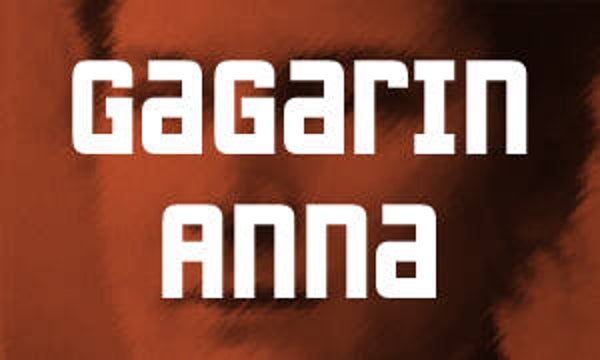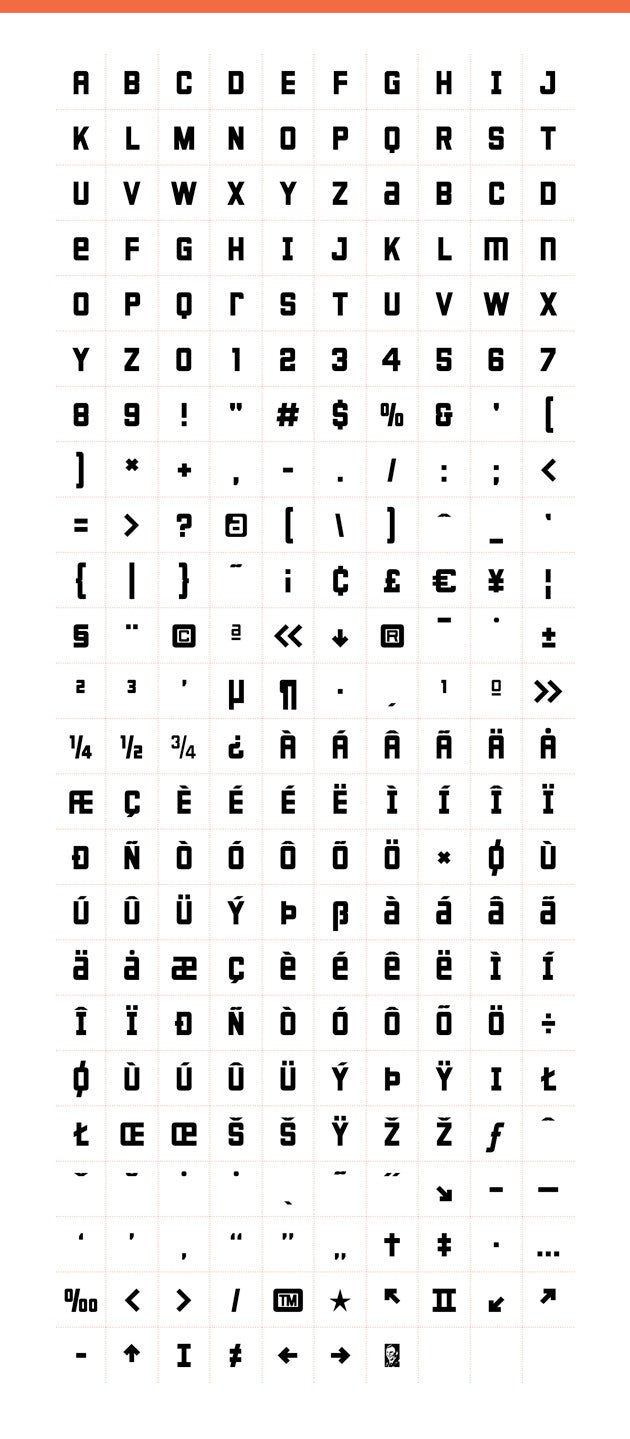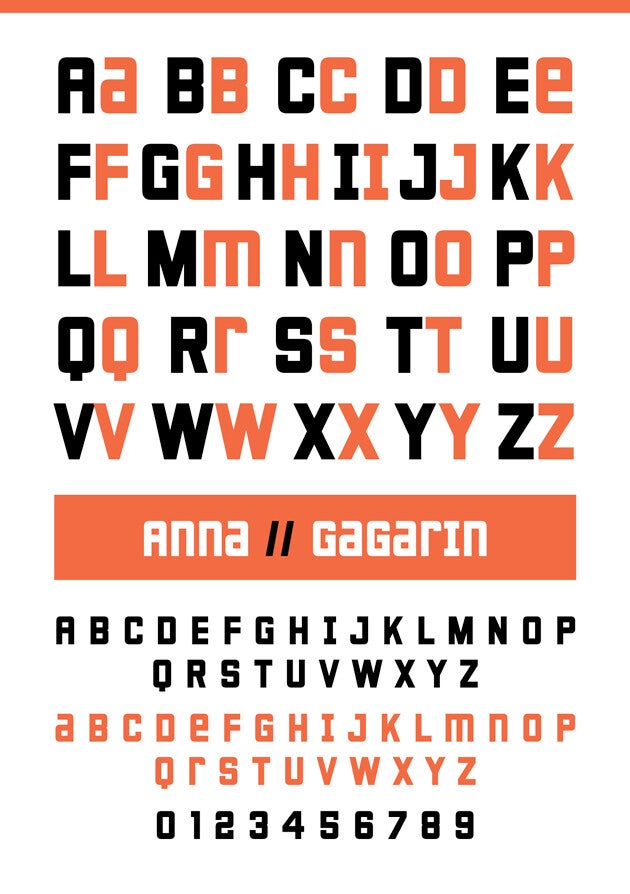
Anna Gagarin is a typeface designed for editorial and display use. Gagarin Family comes in 18 different variations for beautiful typographic weight combinations. Gagarin Family is perfect for designing logo's, headings or display typography.
The Gagarin Family is designed by Novo Typo / Mark van Wageningen.
Designed in Amsterdam - The Netherlands 2000.